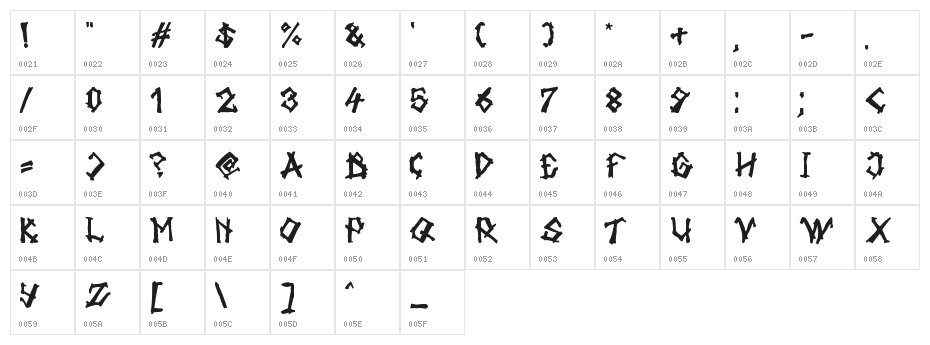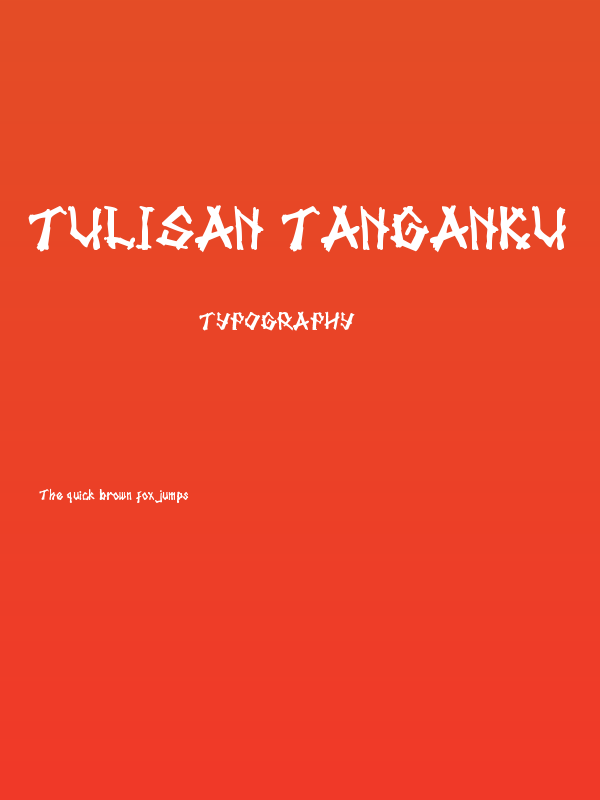
tulisan tanganku Font
tulisan tanganku Description
This font features a rugged, hand-drawn style with irregular edges and a bold presence. The characters are unevenly shaped, giving it a raw and organic feel. The uppercase and lowercase letters maintain a consistent style, with a slightly chaotic appearance that adds to its charm. Numbers and special characters follow the same aesthetic, making the font suitable for projects that require a touch of edginess and individuality. Its unique design makes it stand out, perfect for creative and artistic applications.
| Proposed Projects | Ideal for album covers, graffiti art, posters, and creative branding projects. |